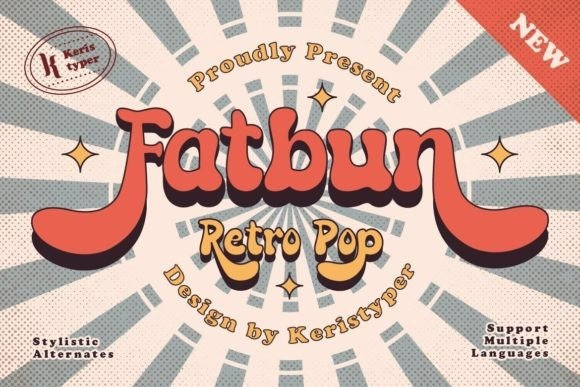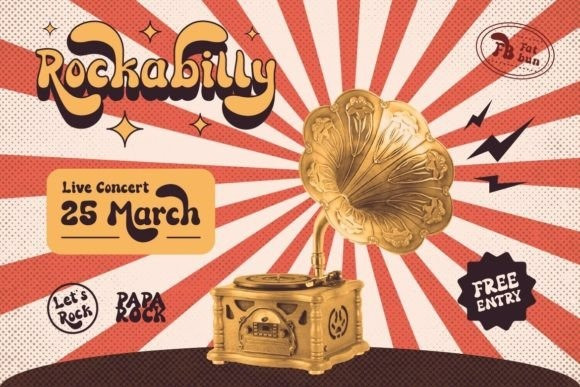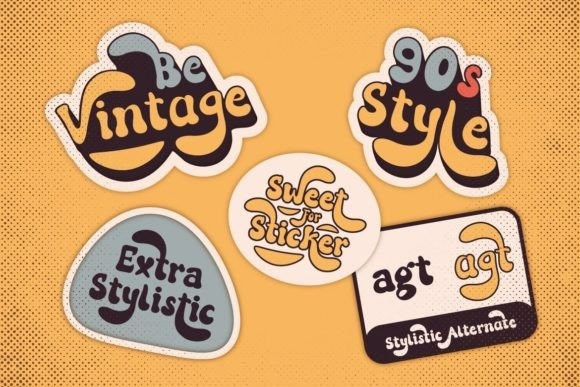
Fatbun Font
Introducing Fatbun – playful hand-lettered bold typeface inspired by classic groovy retro display font. This font is good for logo design, Social media, Movie Titles, Books Titles, short text even long text letters, and good for your secondary text font with sans or serif.